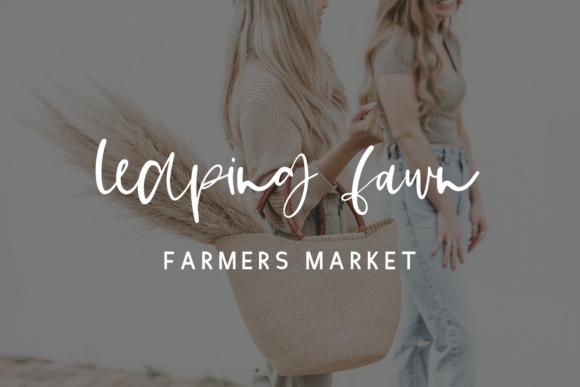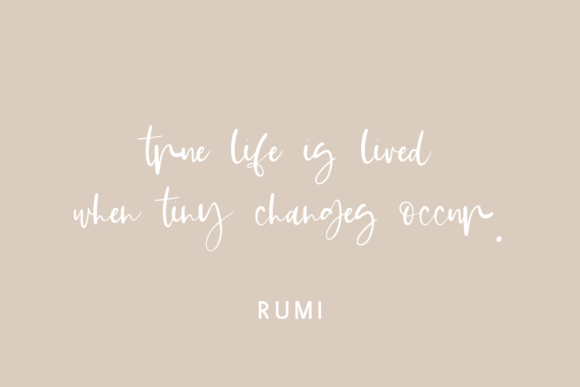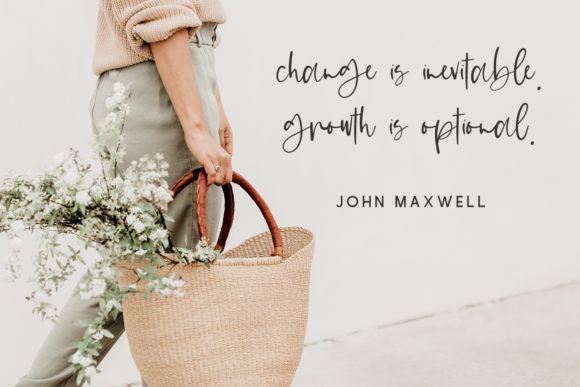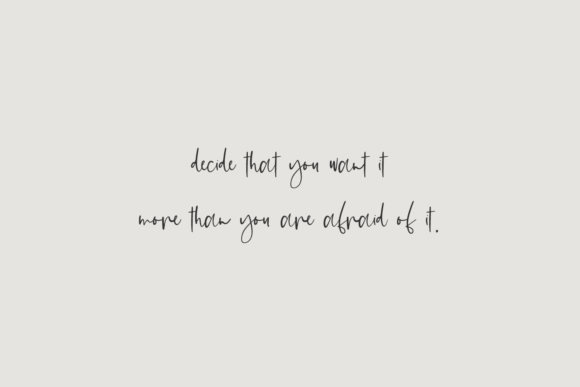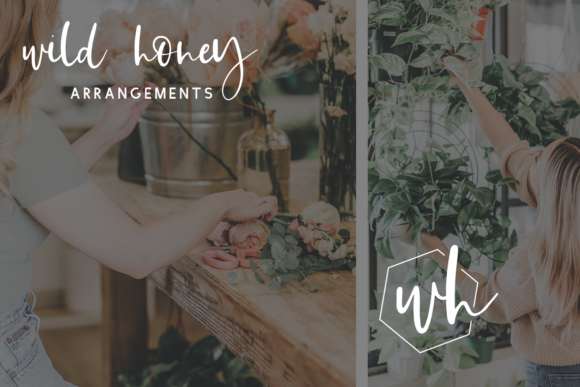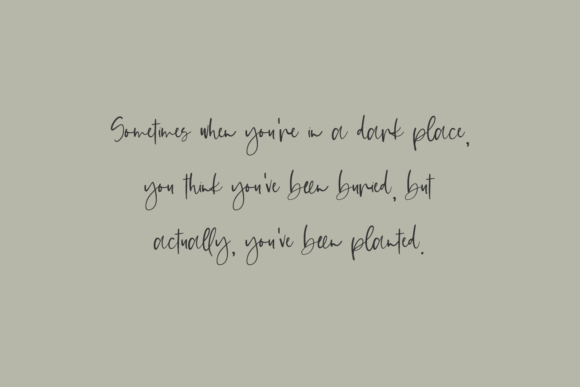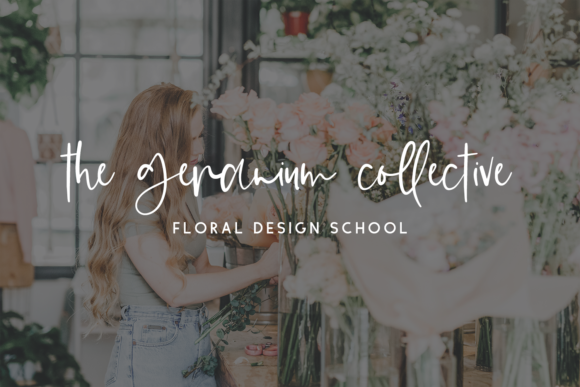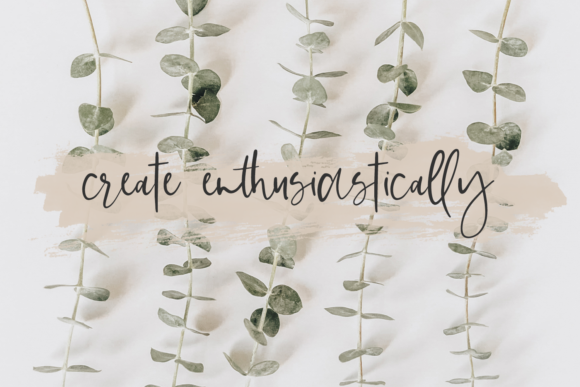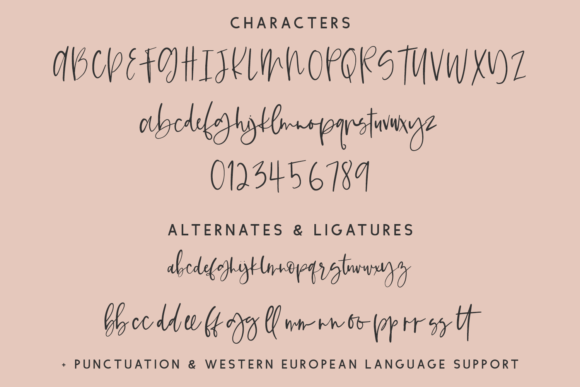
Suggestible Script Font
About Suggestible Script Font
Suggestible Script is a signature font packed with alternates & ligatures to enhance the handwritten look when you use this font in your next project.
Suggestible Script is best for:
– logos + branding
– website design + website accents – think travel blogs, fashion blogs, & more
– clean print design, like magazines + flyers
– header elements that need a handwritten touch
– quote graphics for social media